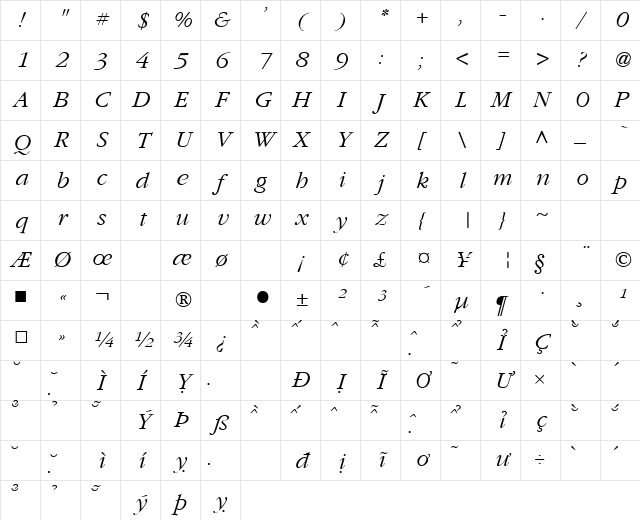
VNI-Garam Italic
Design Context for VNI-Garam
VNI-Garam is a composed and adaptable typeface that performs quietly and consistently across a wide range of design contexts. The slanted form adds forward momentum and visual energy.